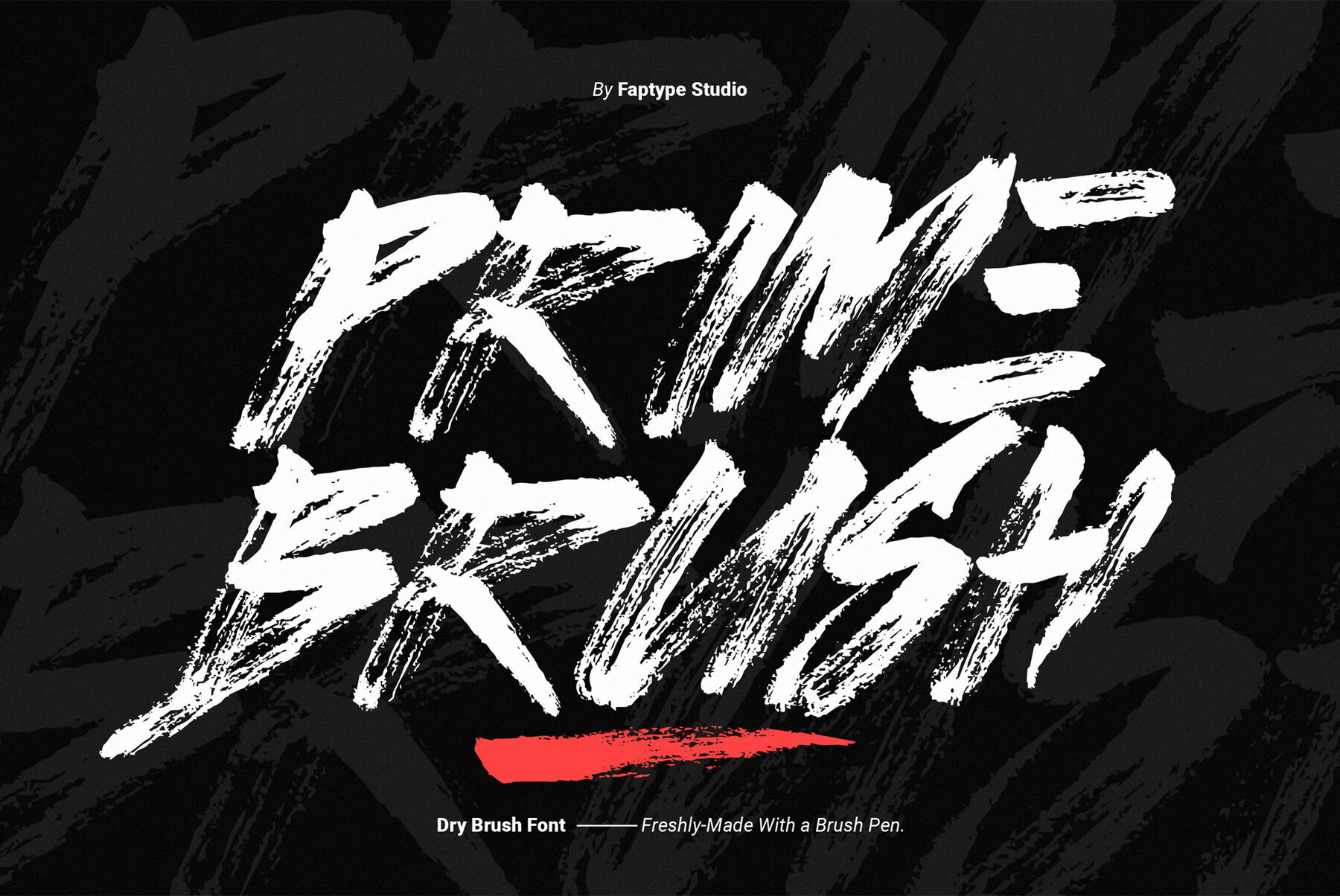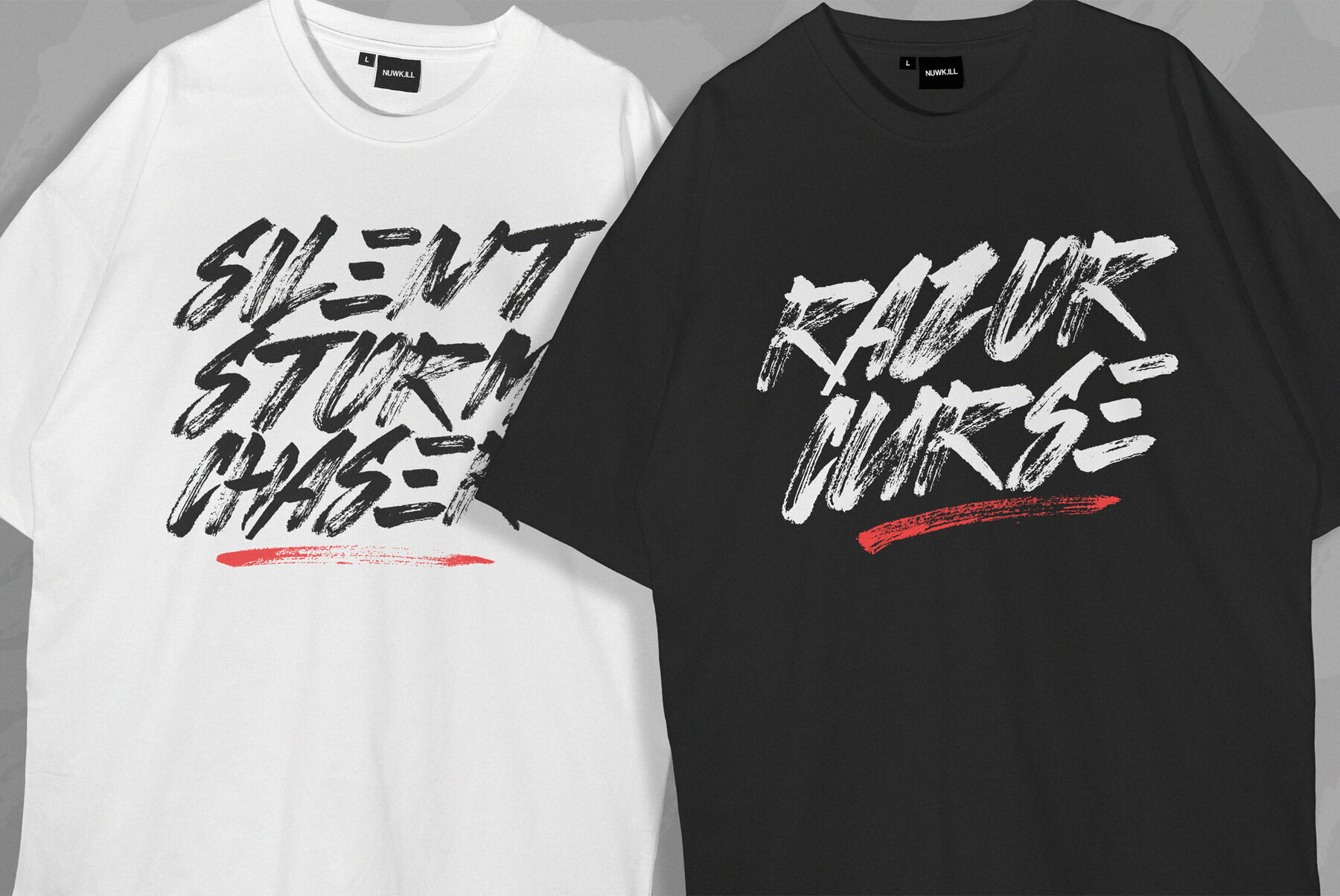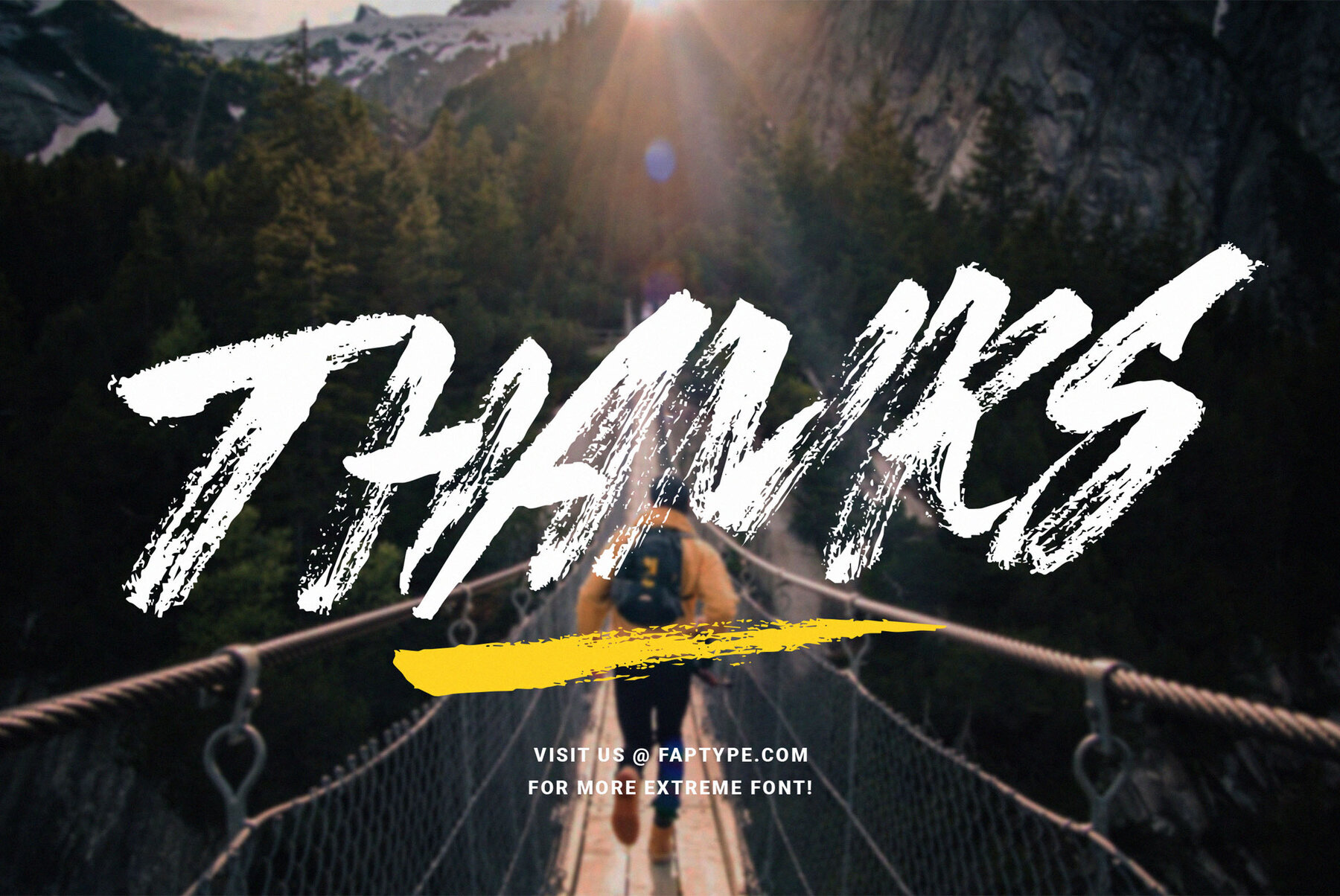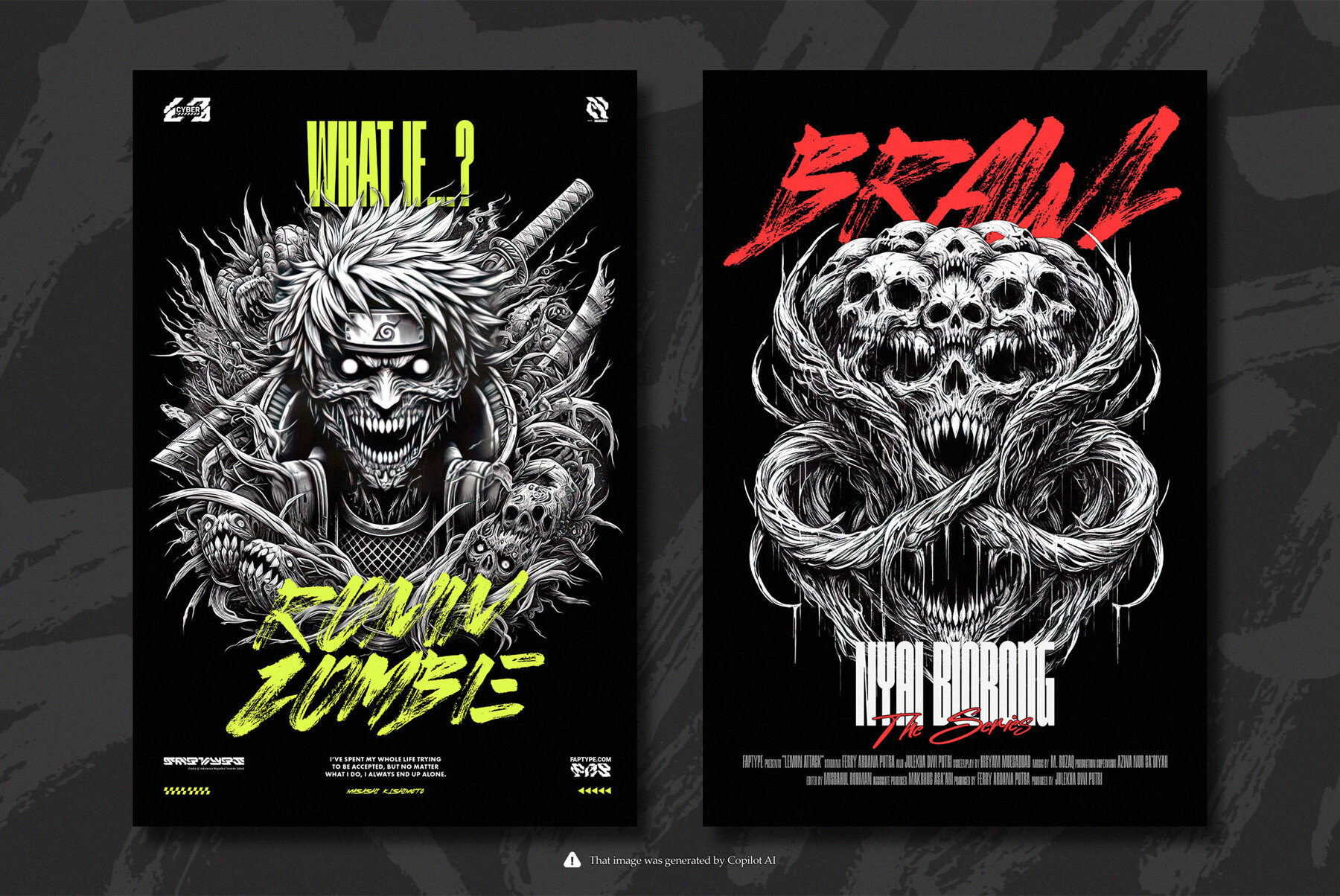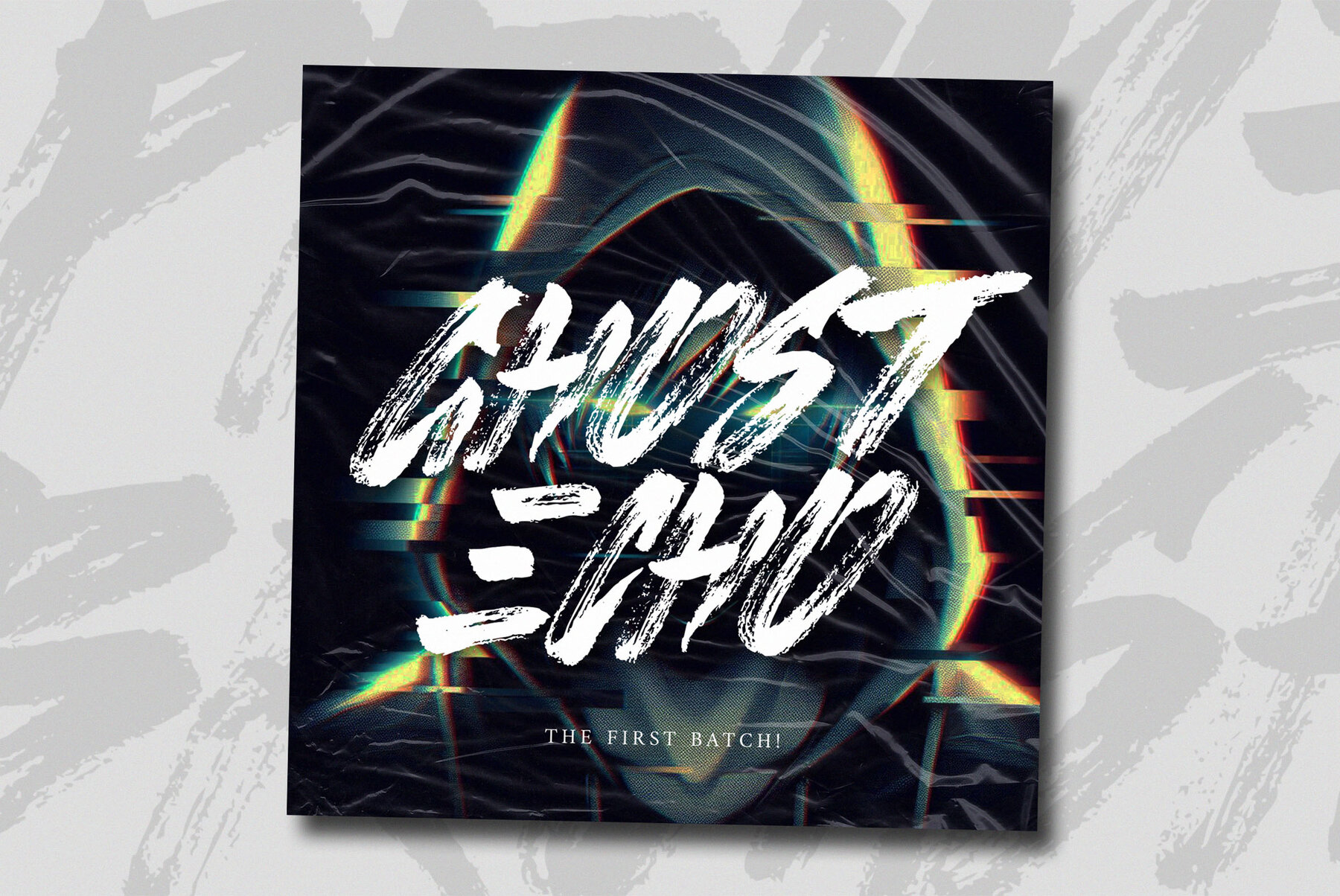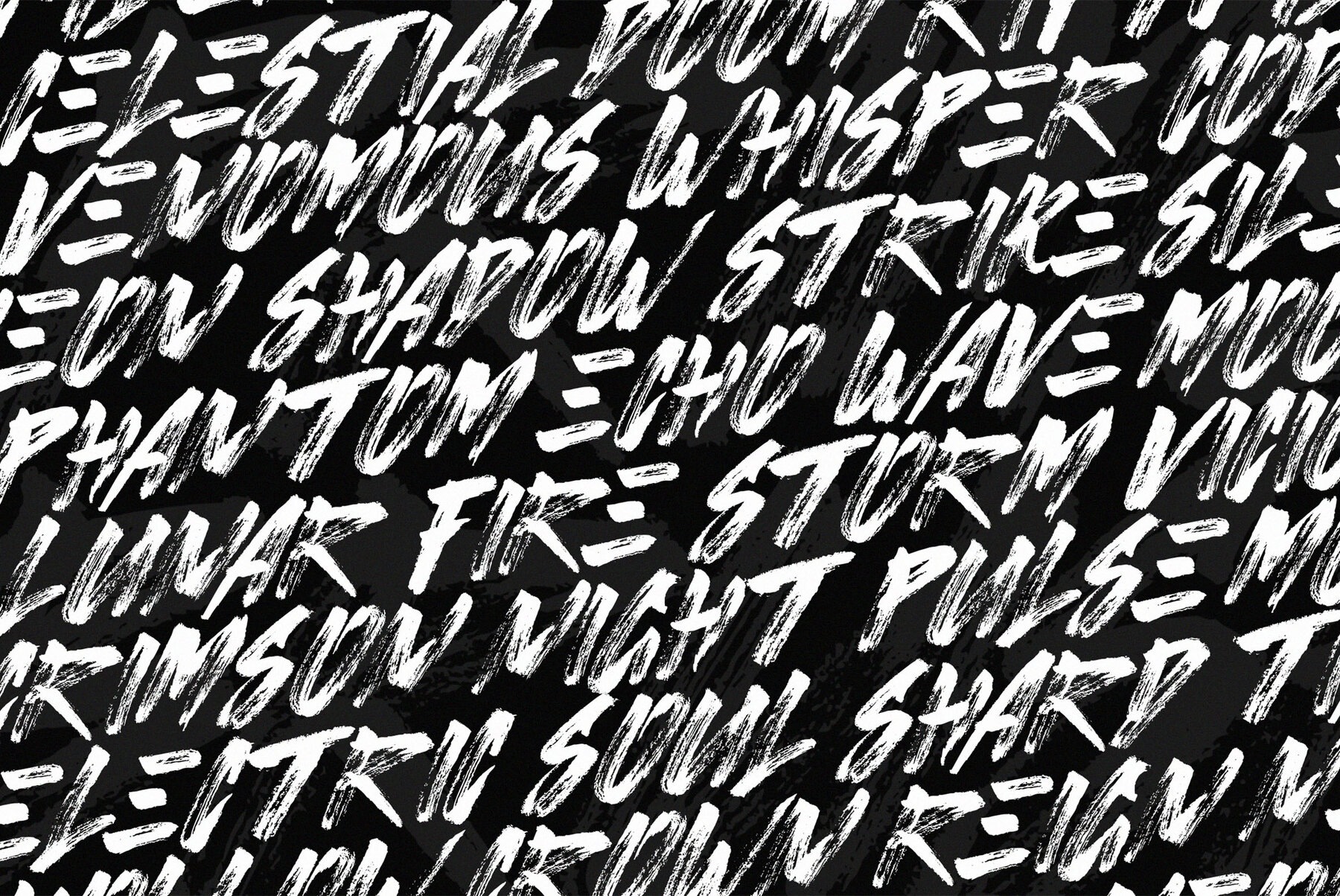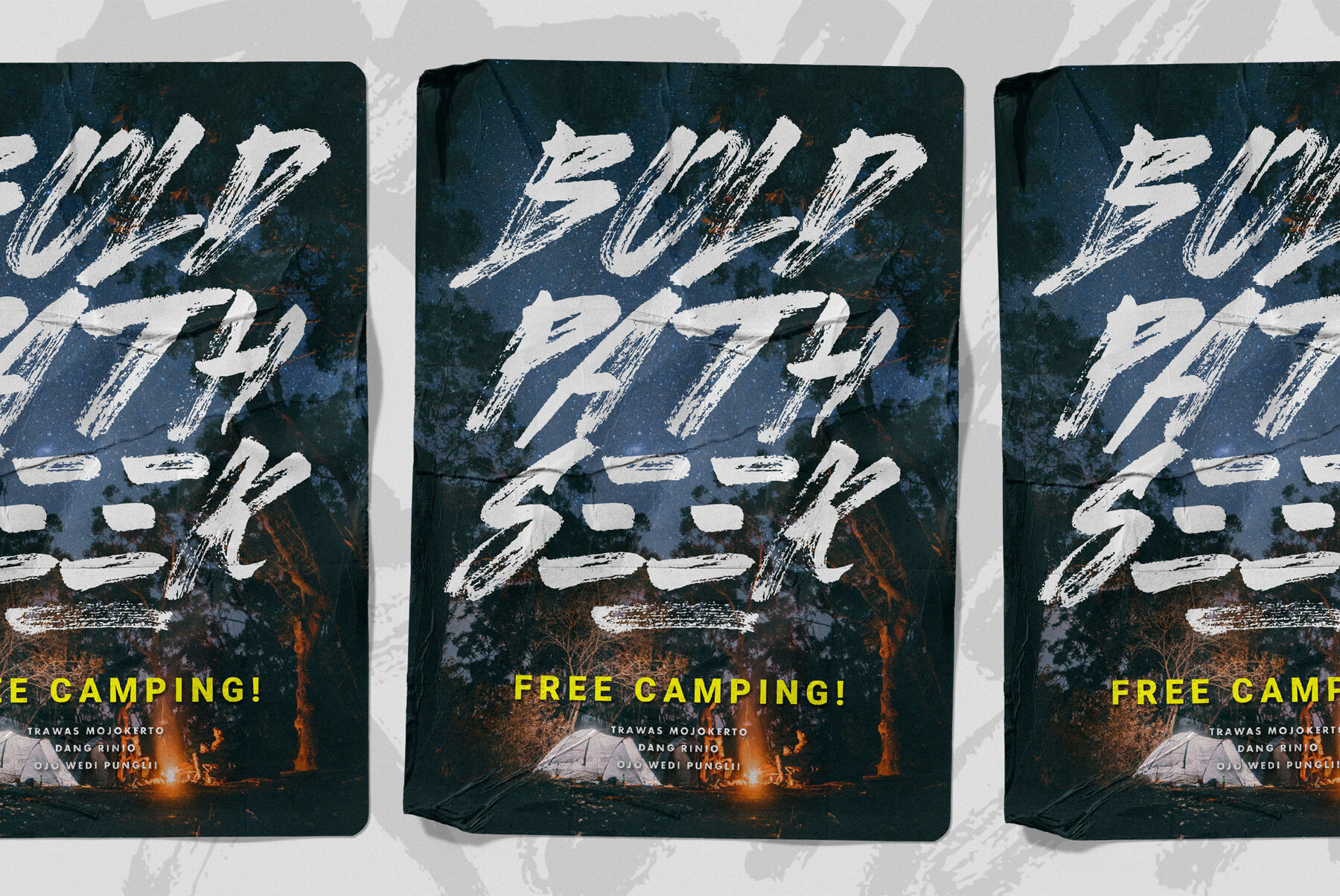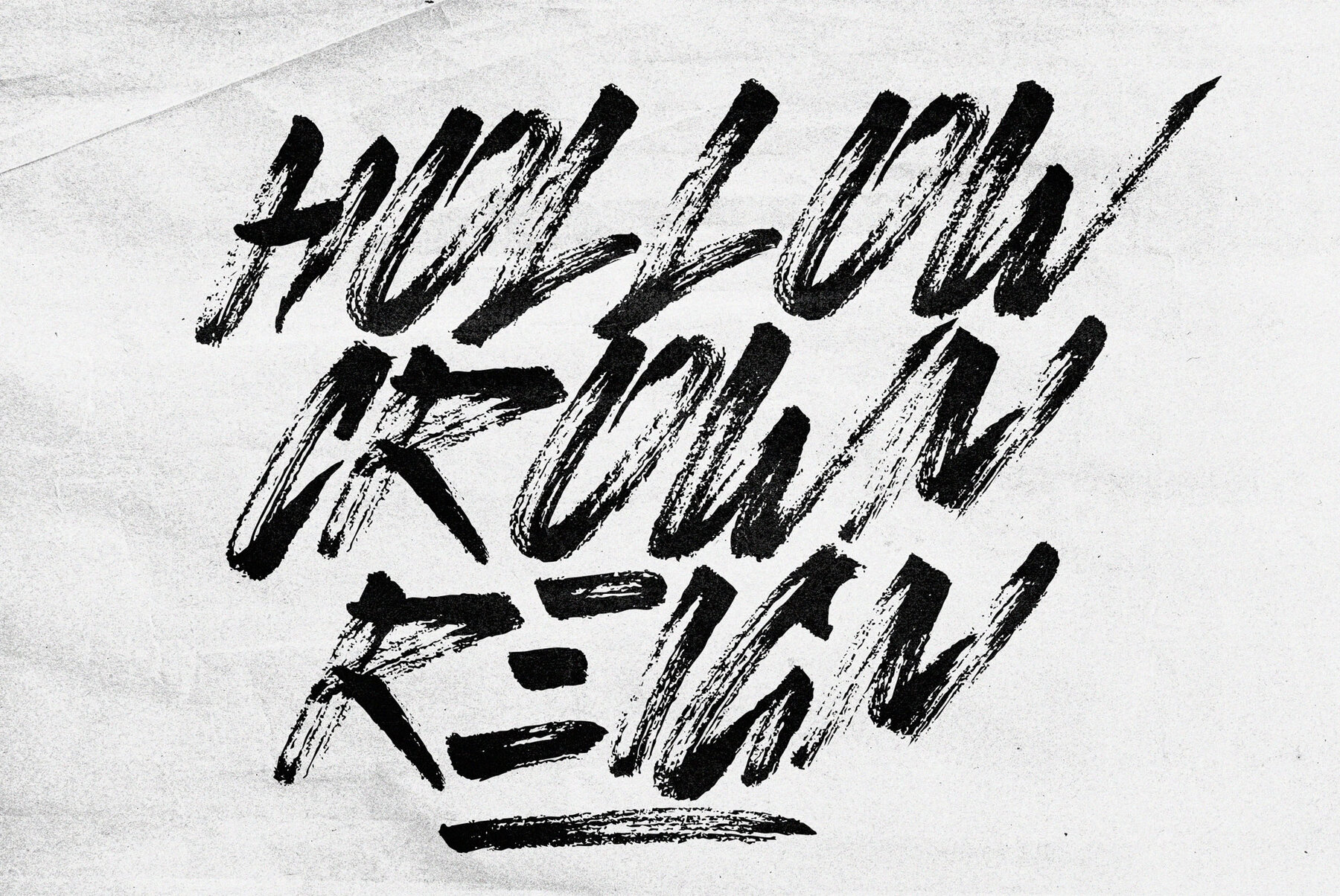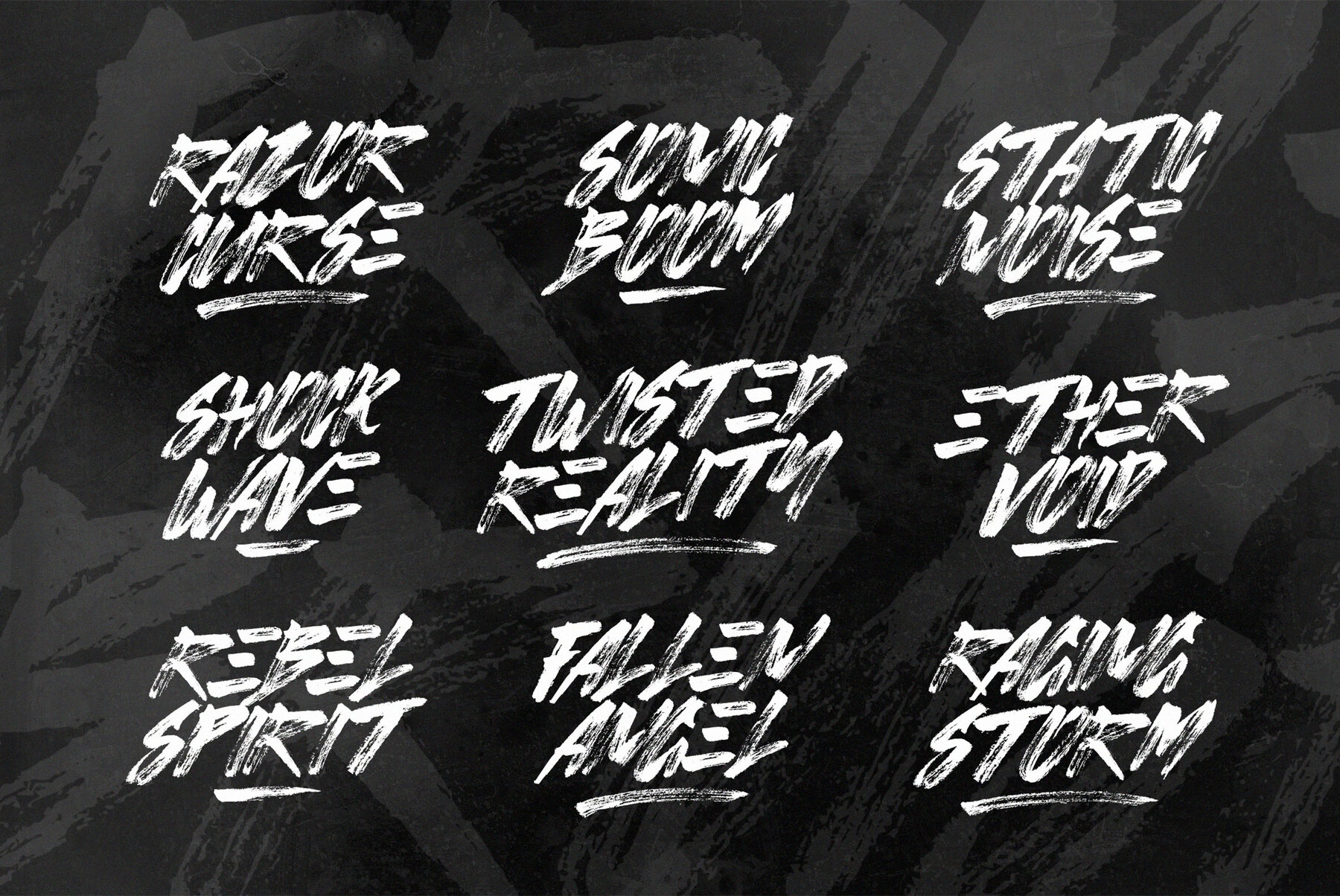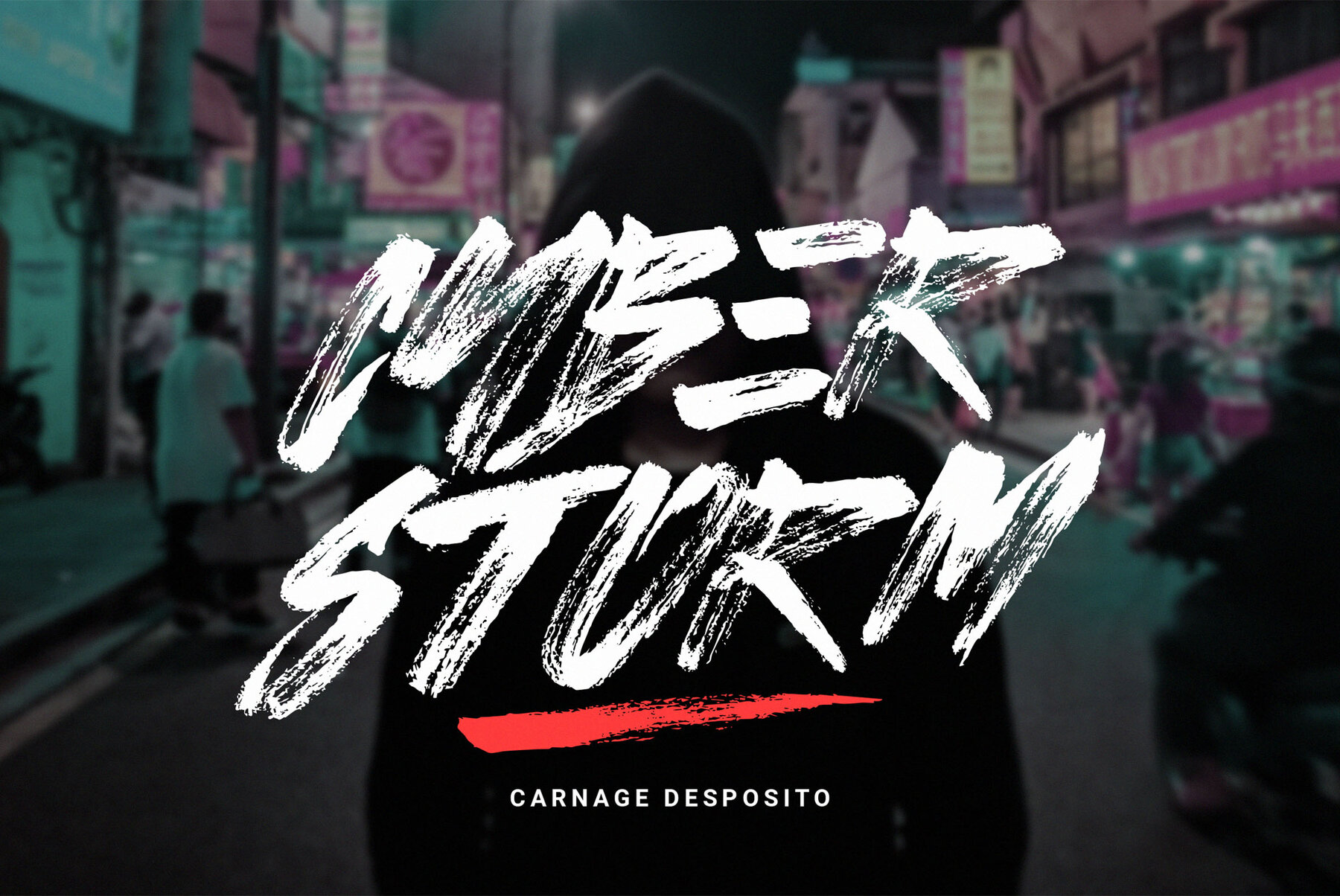
Prime Brush Font
Prime Brush Regular
Prime Brush is more than just a font; it's an artful expression capturing the raw energy of bold strokes and dynamic movement. Handcrafted with a real dry brush, each letter showcases the precision and authenticity of organic imperfections. This font brings any design to life with its expressive details, making it your go-to choice for bold headlines, eye-catching logos, or artistic branding. Designed exclusively with uppercase letters, Prime Brush makes a powerful statement. It comes with a comprehensive array of symbols, punctuation, and swashes, offering creative freedom to add flair and motion to your projects. Thanks to its multilingual support, it easily adapts to various languages, providing versatility for global endeavors. The rugged, textured strokes of Prime Brush achieve a perfect balance between chaos and control—ideal for projects demanding a touch of raw energy. Whether you're designing posters, apparel, album covers, or engaging in branding, packaging, or social media graphics, this font seamlessly integrates to offer authenticity. Streetwear aesthetics, grunge-style visuals, or impactful advertising all become more striking when you let Prime Brush convey your message.Prime Brush: Unleash Your Creative Side
Prime Brush Features: